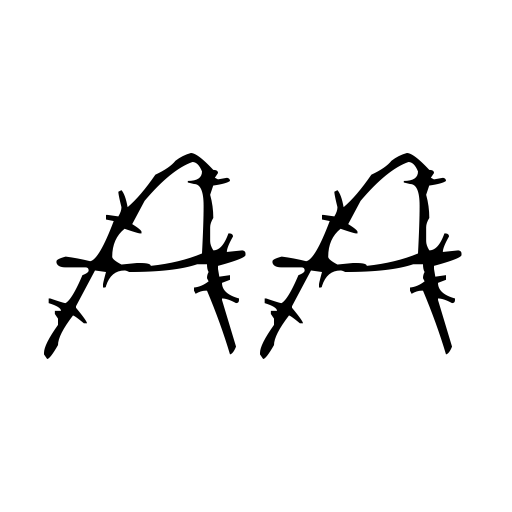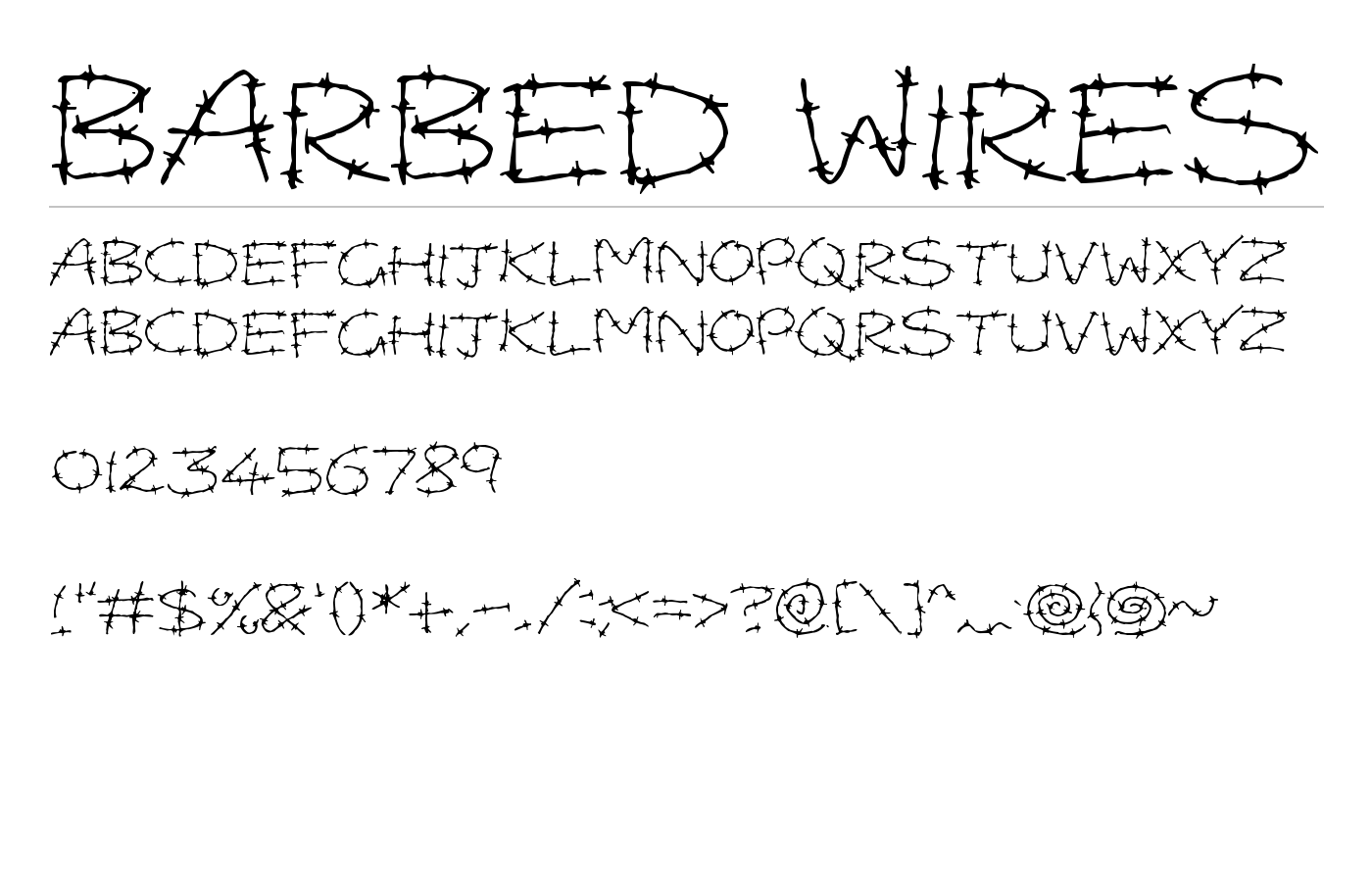
Barbed Wires is a distinctive decorative font that mimics the look of twisted barbed wire, giving it a raw, edgy feel perfect for bold, eye-catching designs. Its sharp, irregular strokes and unique style make it ideal for posters, logos, or branding that needs a gritty, rebellious vibe. This font works best in display settings where its intricate details can stand out and make a strong visual impact.
Barbed Wires Font
About Barbed Wires Font